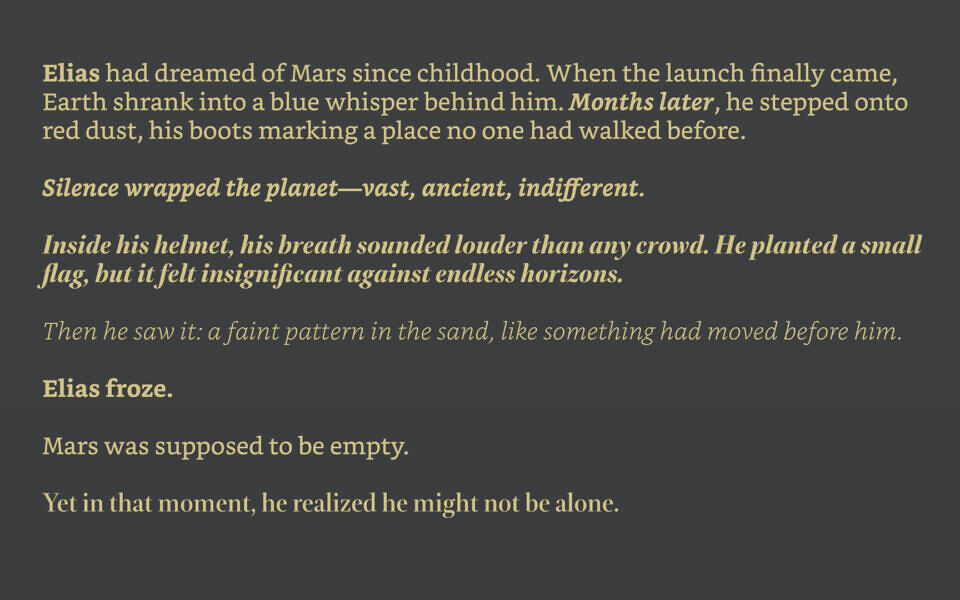
Bookerly is a serif typeface created by Dalton Maag for Amazon’s Kindle e-readers and applications. Amazon.com claims that the font, in conjunction with a new typesetting engine, allows the user to “read faster with less eyestrain.” The font features kerning pairs and ligatures.
The 2015 Kindle Paperwhite (3rd generation) saw the font change from Caecilia to Bookerly, and it has continued to serve as the default font on Amazon’s subsequent e-readers. Bookerly is available on Amazon’s Developer site and was also added to many older Kindle devices through firmware updates.